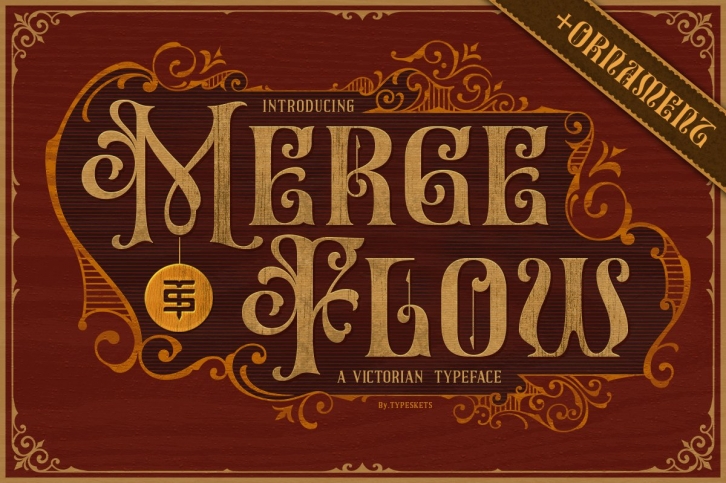
Merge Flow, a font inspired by the Victorian style, with ornaments as an elegant and classy touch makes this font suitable for you to use for vintage themed designs, you can use it on label designs, posters, logotypes, merchandise, packaging designs, crafts, and more. as well as apparel, this font includes a variety of vintage ornaments and frames, as well as patterns that you can use for your designs